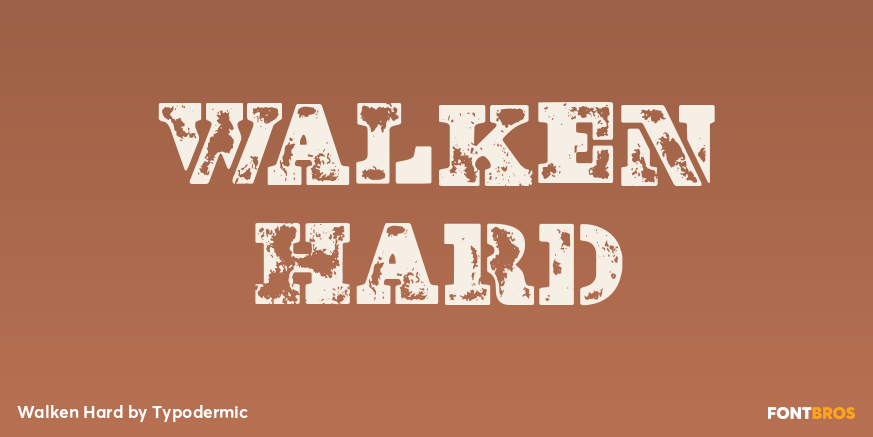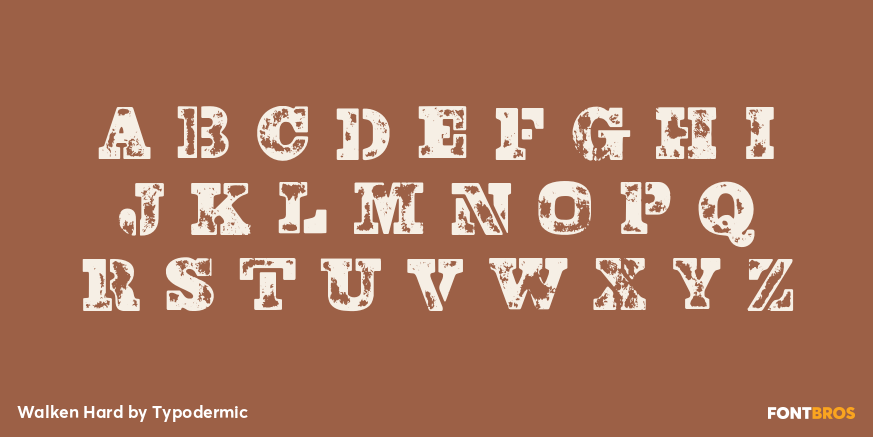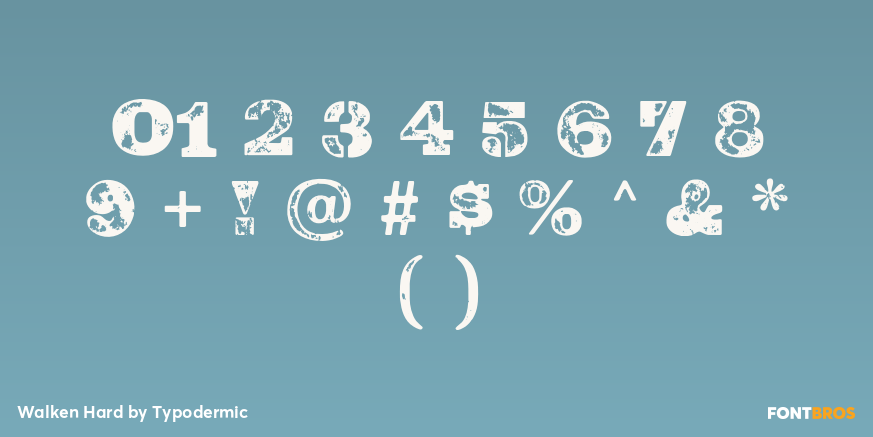
Walken Hard
Walken Hard subjects the family’s heavy irregular stencil forms to its most severe surface damage. Broad chips and missing patches cut deeply into the slabs, creating lettering that looks battered by impact, corrosion, failed paint, or repeated industrial handling. The underlying silhouettes remain recognizably Walken, but the damaged interiors make Hard a much more forceful display treatment than Clean or Crisp.
Use Walken Hard for demolition titles, scrap and material-recovery graphics, extreme-equipment campaigns, distressed vehicle lettering, heavy-music packaging, survival-game environments, and large event imagery. Keep the wording short and the scale generous so the remaining shapes stay legible. Walken Clean can handle product architecture and information, while Crisp provides a less destructive intermediate texture when Hard would overpower the layout.